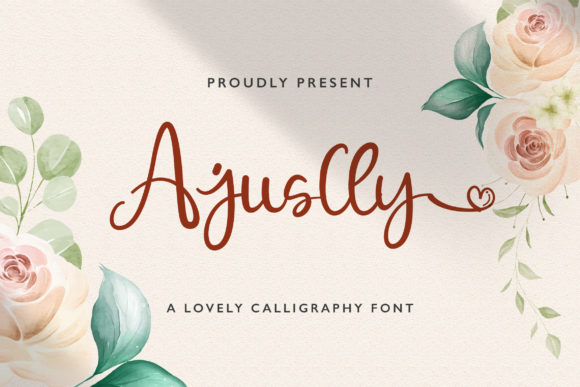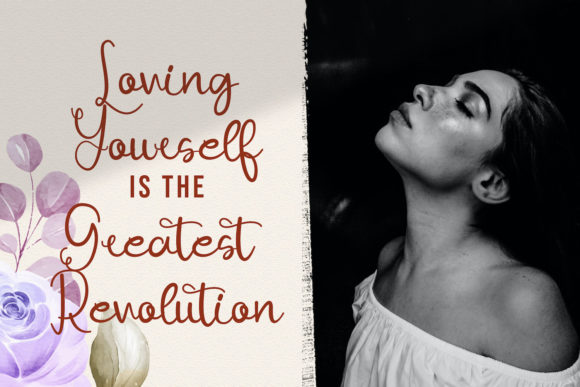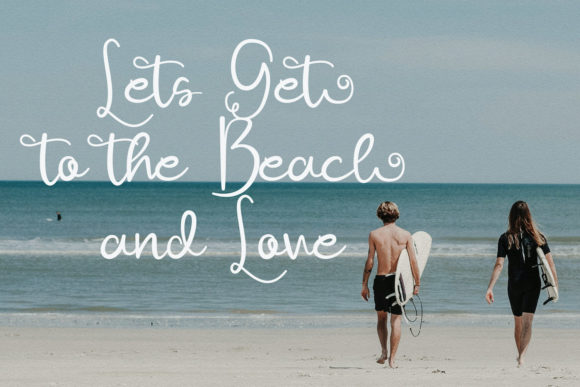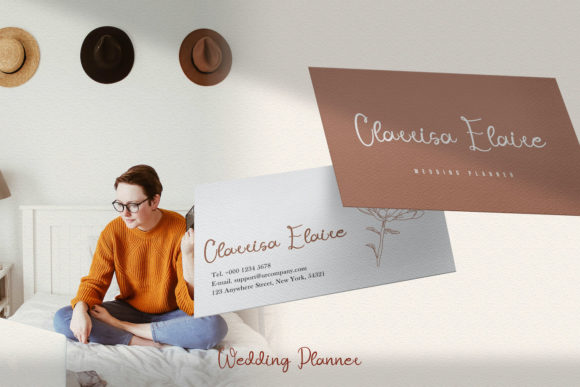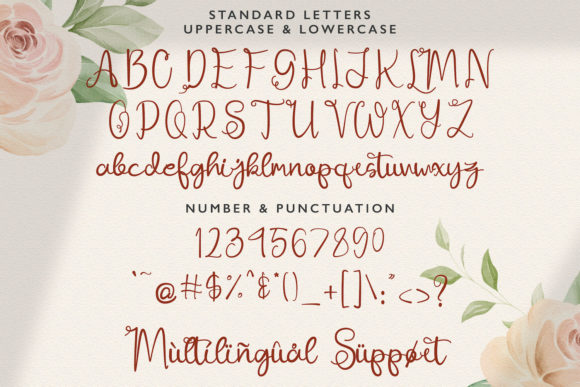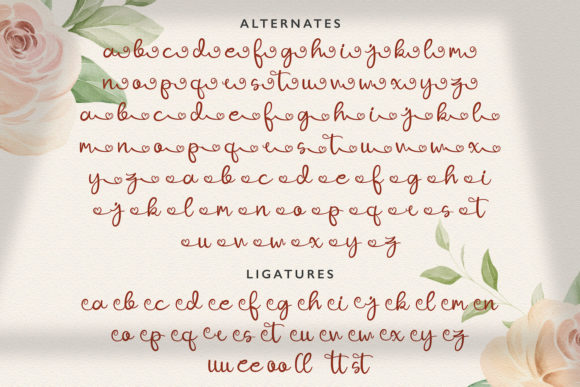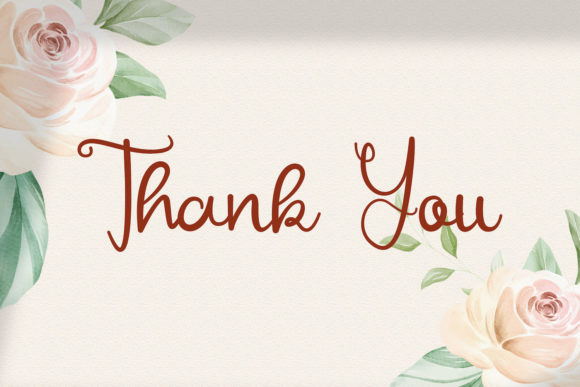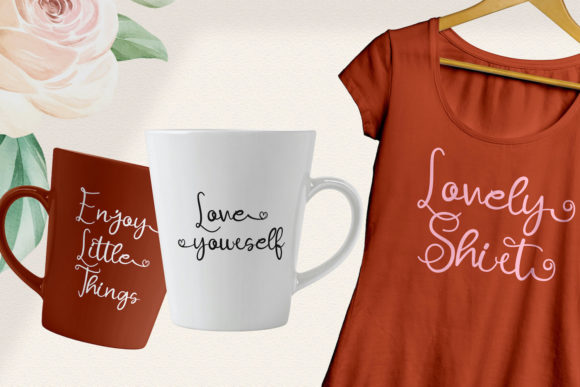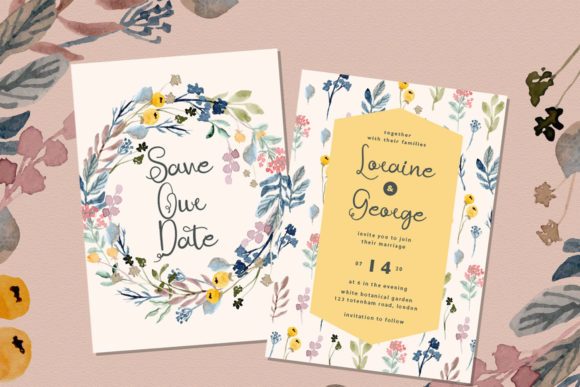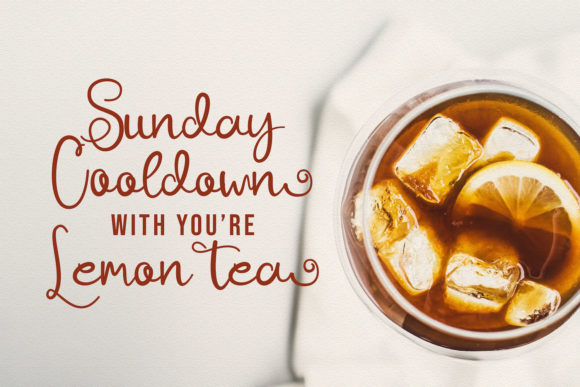
Ajuslly Font
About Ajuslly Font
Ajuslly sounds like a remarkable and versatile handwritten font that can elevate a wide range of design projects. With its distinct and timeless style, this font is sure to make any creative endeavor stand out. Let’s explore some of the ways you can utilize Ajuslly to create stunning designs:
1. Wedding Invitations: Use Ajuslly to design elegant and romantic wedding invitations that capture the essence of the special day.
2. Thank You Cards: Create heartfelt and personalized thank you cards with the font’s delicate and distinct touch, conveying gratitude with style.
3. Quotes and Greeting Cards: Design beautiful quote graphics and greeting cards featuring inspiring messages, and let the font’s timeless charm enhance the sentiment.
4. Logos and Branding: Apply Ajuslly to logos and branding materials to infuse brands with an authentic and handcrafted feel.
5. Business Cards: Use the font on business cards to make a memorable first impression and convey professionalism with a touch of elegance.
6. Social Media Posts: Utilize Ajuslly in social media graphics to make your posts visually captivating and add a warm, personal touch to your online presence.
7. Art Prints: Create art prints with calligraphic quotes or illustrations, highlighting the font’s unique and artistic qualities.
8. Event Stationery: Design sophisticated event stationery, such as menu cards and place cards, using Ajuslly to add a touch of elegance to any occasion.
9. Personal Stationery: Customize personal stationery with the font, showcasing your unique style and taste.
10. Watermarks and Signatures: Use Ajuslly as a watermark on photos or graphics to add a touch of sophistication and protect your creative work.
11. Book Covers: Apply the font on book covers for novels, poetry collections, or self-help books, adding a touch of timeless charm to literary works.
12. Boutique Packaging: Incorporate the font in boutique product packaging to create an upscale and memorable image for your products.
13. Fine Art Photography: Use Ajuslly in fine art photography prints, adding an artistic and elegant touch to visual storytelling.
14. Lifestyle Blog Headers: Apply the font to blog headers or featured images to create an inviting and visually appealing blog design.
15. Romantic Illustrations: Use the font in romantic-themed illustrations or graphics to evoke emotions and create a dreamy atmosphere.
16. Calligraphy Art: Showcase Ajuslly in calligraphy art pieces or custom hand-lettered designs, highlighting its delicate strokes.
17. Luxury Brands: Design marketing materials for luxury brands, using the font to enhance the sophistication and exclusivity of the products or services.
18. Stylish Packaging: Apply the font to packaging for stylish products, showcasing attention to detail and craftsmanship.
19. Signature Elements: Use Ajuslly as a signature element in your designs or creative projects to add a personal touch.
20. Artistic Wedding Programs: Design artistic wedding programs that reflect the couple’s story, using the font to add a touch of romance.
In conclusion, Ajuslly is an incredibly distinct, delicate, and timeless handwritten font that exudes elegance and sophistication. From wedding invitations to branding materials and artistic prints, this font’s versatility allows it to shine in various design projects. Its smooth lines, varying baseline, and stunning alternates, along with the ability to access all the glyphs and swashes with ease, make it a perfect choice for adding a handwritten touch to any creative endeavor. Embrace the beauty of Ajuslly and let its charm elevate your designs to new levels of sophistication and artistry, leaving a lasting impression on your audience.